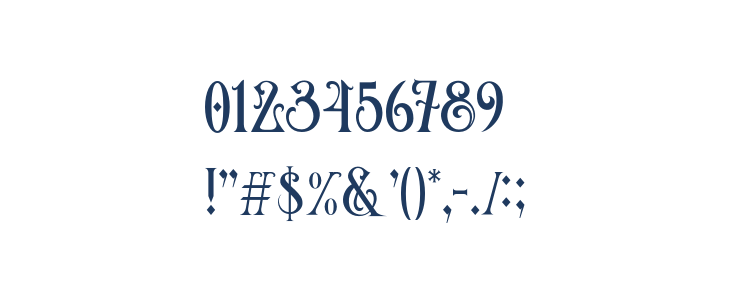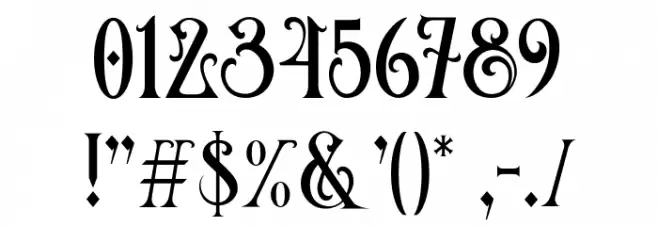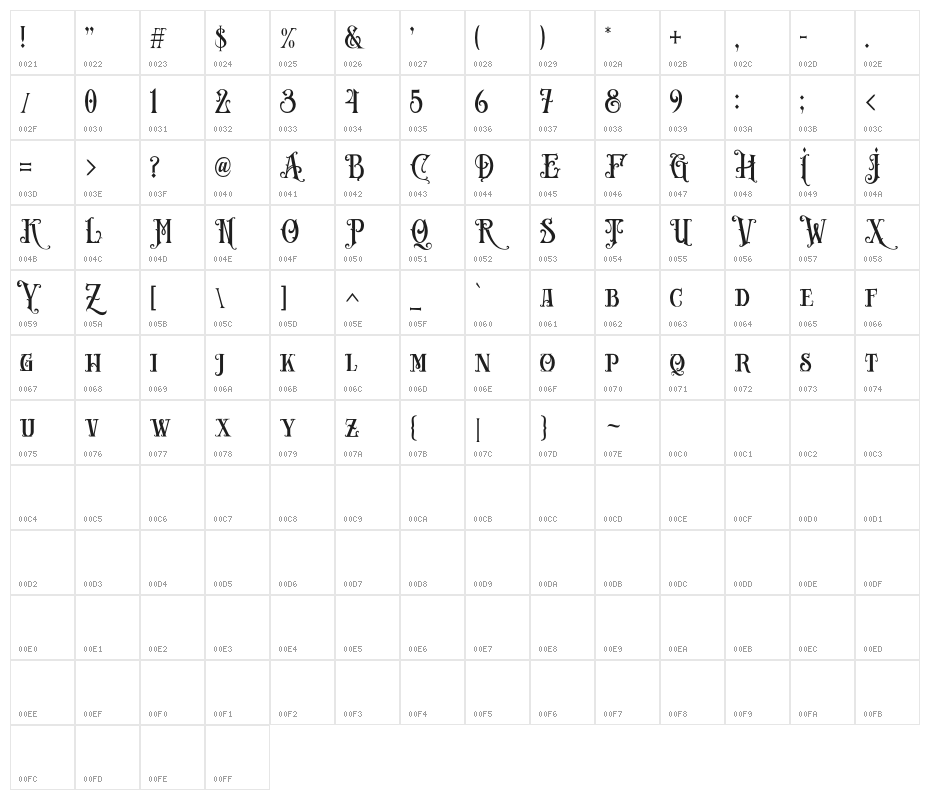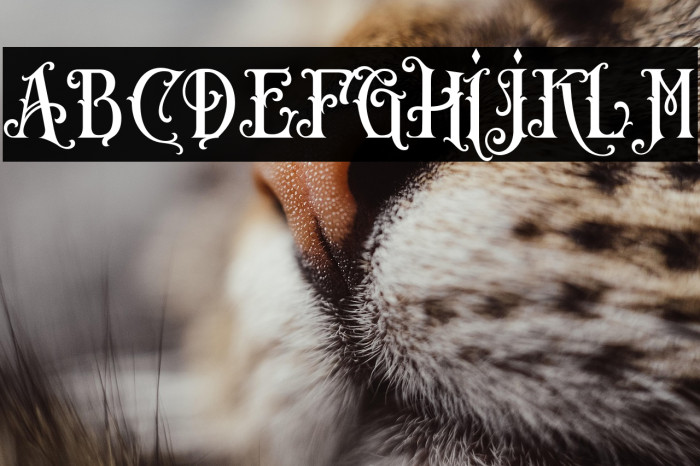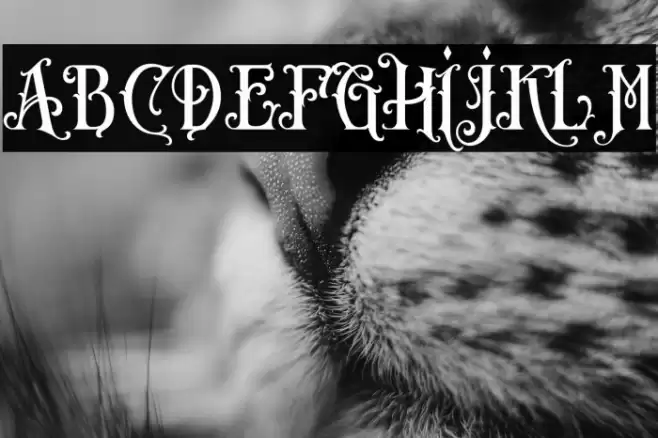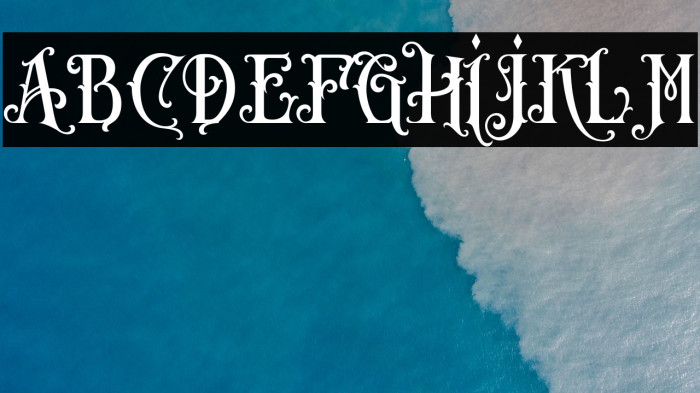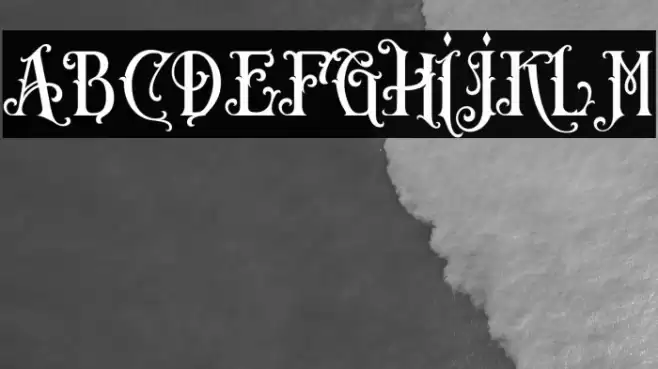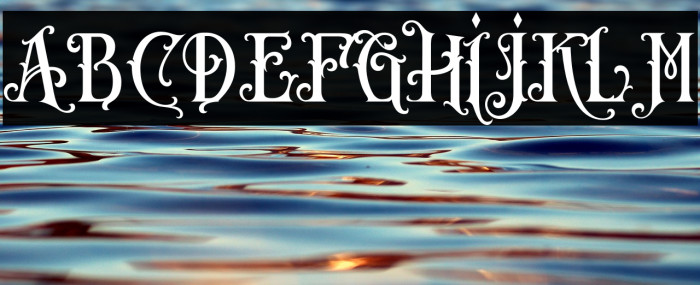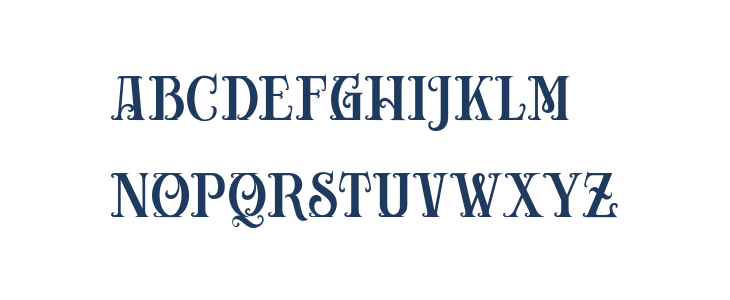
CarllostaDemo Font
CarllostaDemo Description
This font features an ornate and decorative style with elaborate swirls and flourishes extending from the characters. The uppercase letters are particularly embellished, giving a sense of elegance and sophistication. The lowercase letters maintain a similar decorative theme, ensuring consistency throughout the typeface. The numerals are uniquely styled, incorporating the same intricate details as the alphabet, making them stand out. Special characters are also designed with the same attention to detail, providing a cohesive look across all glyphs. This font is ideal for projects that require a touch of vintage charm and artistic flair.